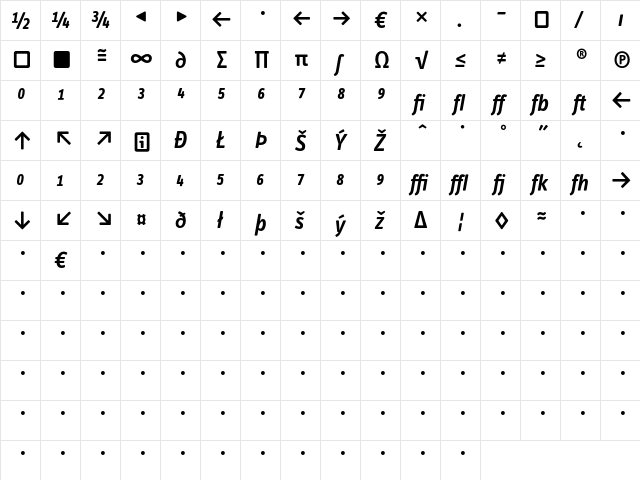
InfoTextSemibold ItalicExp
Design Context for InfoTextSemibold Typeface
InfoTextSemibold is a composed and adaptable typeface that performs quietly and consistently across a wide range of design contexts. The slanted form adds forward momentum and visual energy. The heavy weight commands attention and anchors typographic hierarchies.
Pro Tip: Try InfoTextSemibold for annotation and caption copy alongside an upright companion — the contrast in angle creates a dynamic but ordered typographic system.